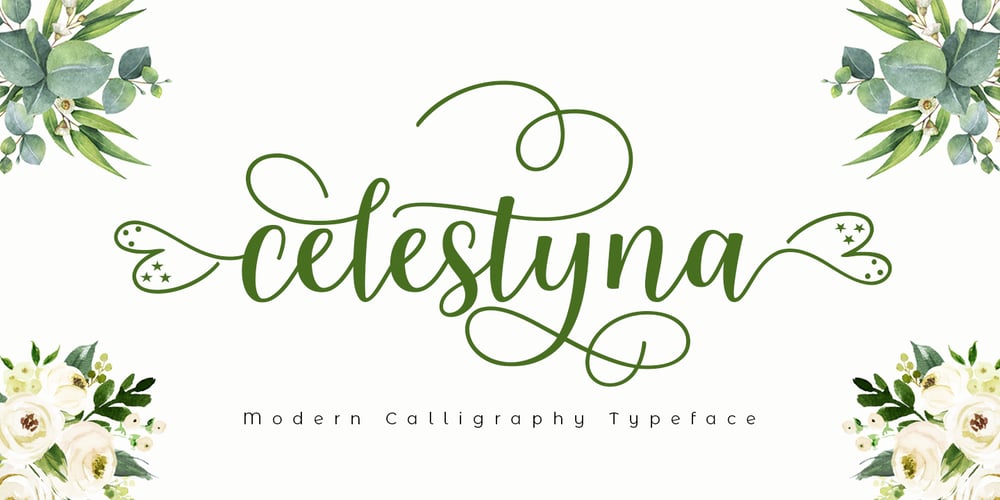
Selestyna Font Family was designed by Kurniadi Saputra and published by Cooldesignlab. Selestyna contains 1 styles and family package options. Meet the new slick calligraphy font – Selestyna. This gorgeous script is for those who need some elegance and style for their designs and is perfect for wedding invitations, saving date cards, feminine branding, and other necessities. This font is modern with a love style, but still authentic.Selestyna includes the complete set of Basic Uppercase and Lowercase Characters, Numbers, and Punctuation. It also contains binders and many stylistic alternatives to perfectly recreate natural calligraphy (check the preview to see all of them).If you have any questions regarding my products, feel free to write a message or contact me via email Cooldesignlab@gmail.com.Thank you very much for visiting my shop!~ Cooldesignlab